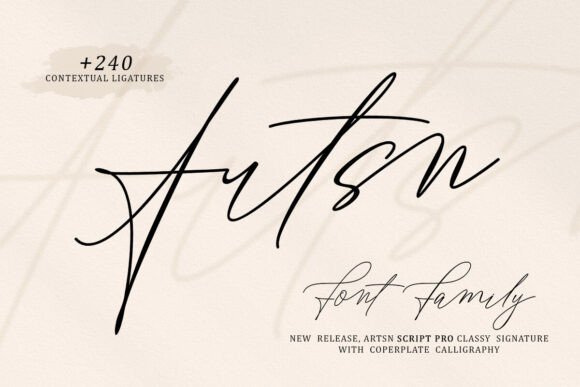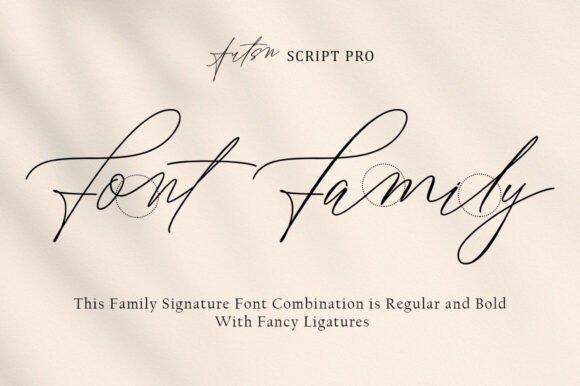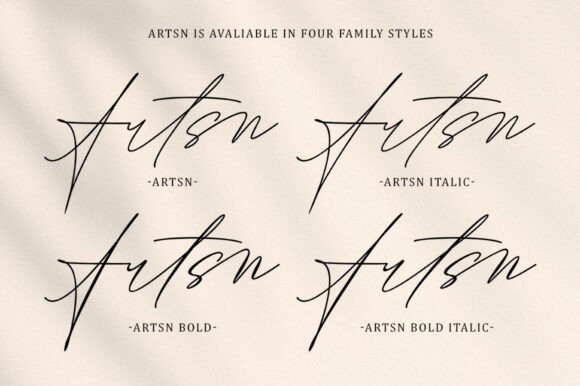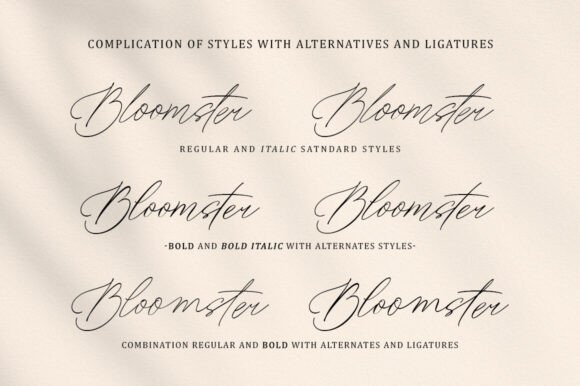
Artsn Font
About the Artsn Font
Get ready to be inspired by Artsn Font, a fresh and dynamic typeface for modern creators. Artsn Script Pro Signature Typeface with Latin Pro Artsn is a stunning signature font, designed to create an elegant and luxurious impression in every letter. With a smooth typographic style and natural touch, Artsn is the right choice for creating designs that look personal, professional, and classy.
With a total of 240 ligatures and various letter alternatives, Artsn provides flexibility and uniqueness in every design project. These ligatures not only beautify the appearance of the letters but also provide a more natural flow between letters, while the letter alternatives allow you to customize each design to look more exclusive and luxurious. This makes Artsn very suitable for applications such as wedding invitations, luxury branding, logo design, fashion editorials, and other creative projects that require elegant and unique typographic elements.
Overall, Artsn is a distinctive font with a touch of elegance and full of character, ideal for bringing a luxurious and personal feel to every written word.